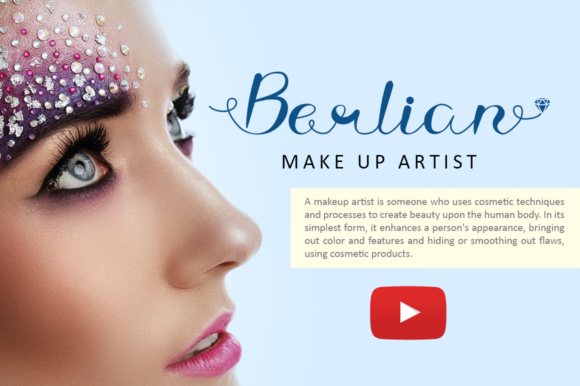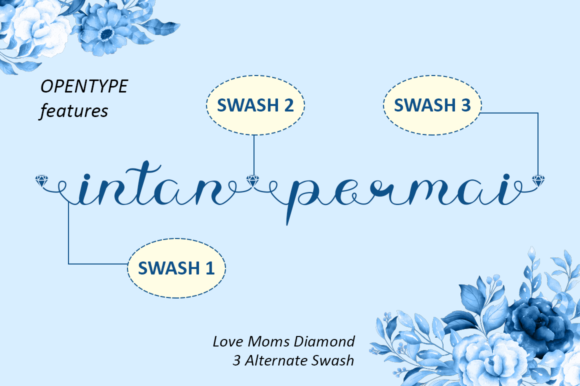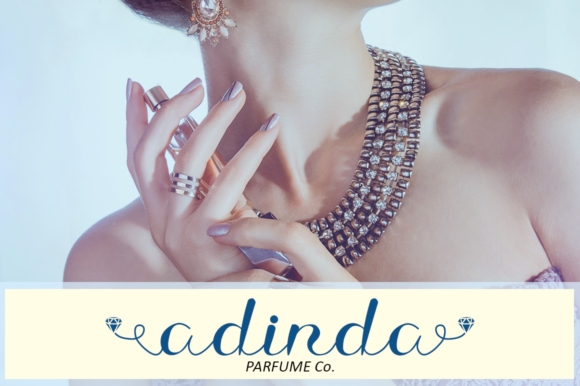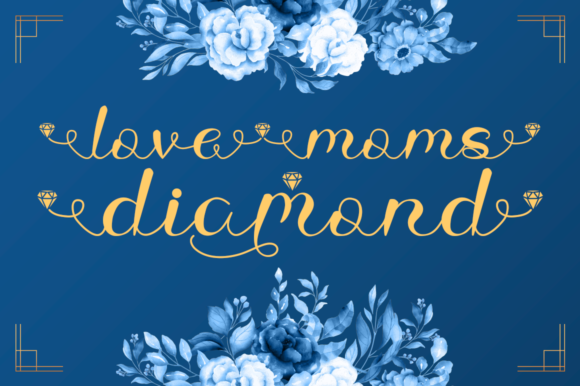
Introduction to Love Moms Diamond Font
Love Moms Diamond is a sweet and beautiful script font.
It features an elegant style that makes it perfect for logos, branding, invitations, stationery, wedding designs, social media posts, and much more .
Key Features of Love Moms Diamond Font
Why Choose Love Moms Diamond Font?